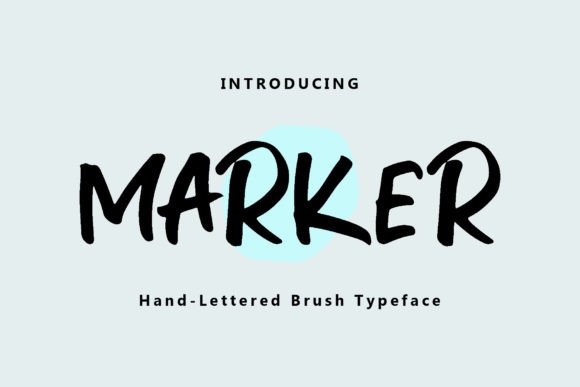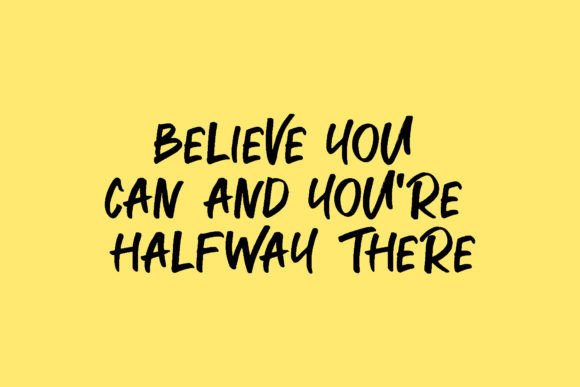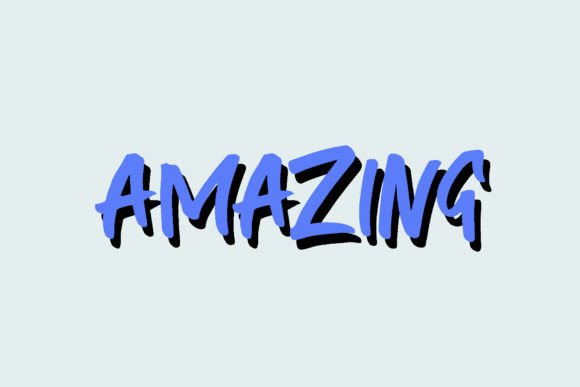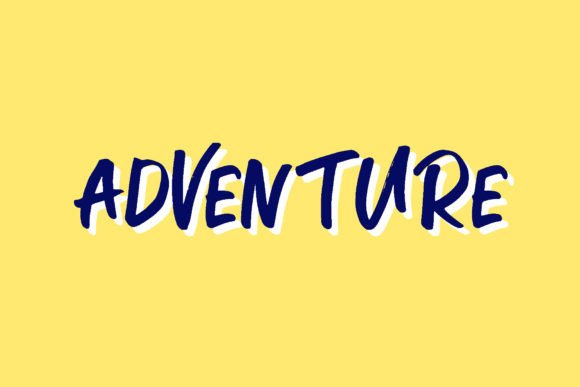
Marker Font
About the Marker Font
Get ready to be inspired by Marker Font, a fresh and dynamic typeface for modern creators. Marker is natural dry brush font. It’s perfect for packaging, logos, quotes, posters, playful lettering, for clothing, and every other design which needs an unique touch.
Marker’s dry brush texture makes it ideal for headlines, short text blocks, and logos where its hand-crafted feel adds personality. It excels in branding for artisanal products, craft breweries, or companies emphasizing a handmade aesthetic. Avoid using Marker for body text or lengthy paragraphs; its irregular stroke weights make it difficult to read at smaller sizes.
Pairing Marker with a clean sans-serif like Montserrat for body copy creates a strong visual contrast, balancing the handcrafted feel with modern readability. Alternatively, a classic serif like Garamond adds a touch of sophistication, complementing Marker’s playful yet slightly rustic nature.
The overall personality of Marker is friendly and approachable yet bold and confident. It’s best suited for projects requiring a touch of rustic charm and visual warmth. Avoid using it for projects demanding strict professionalism or minimalist sophistication.
Marker Font Usage Examples
Marker Font Example